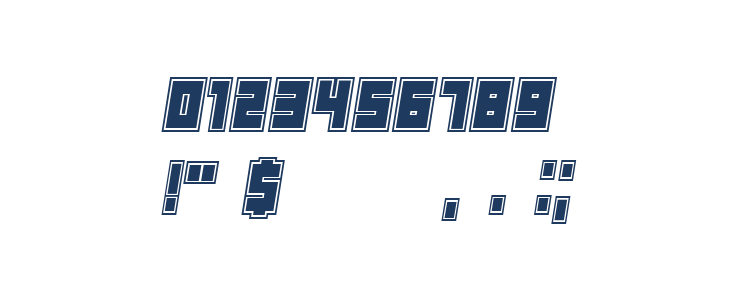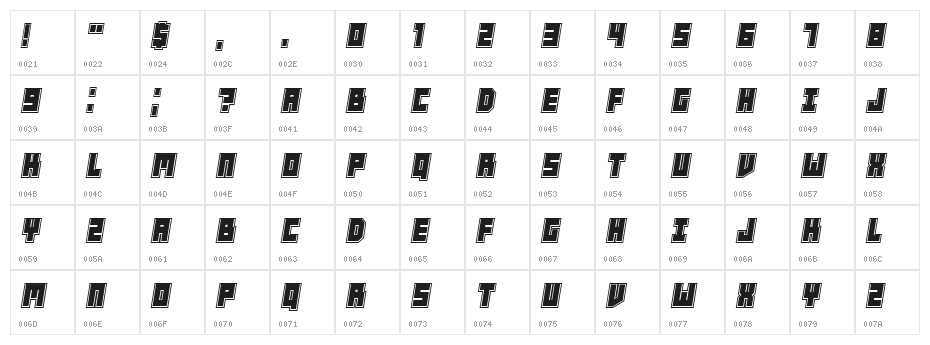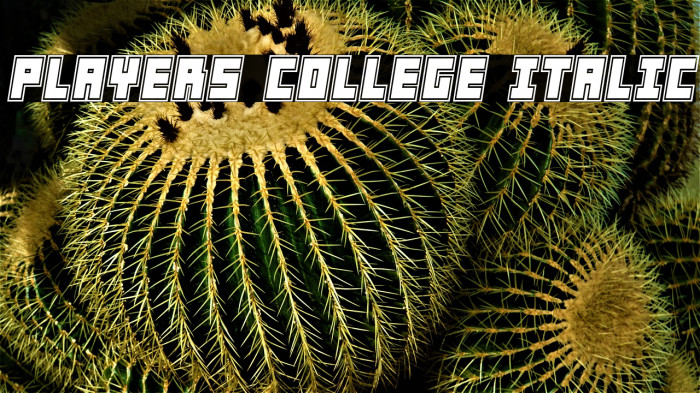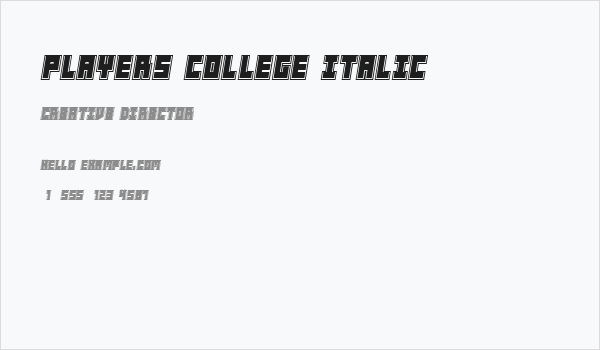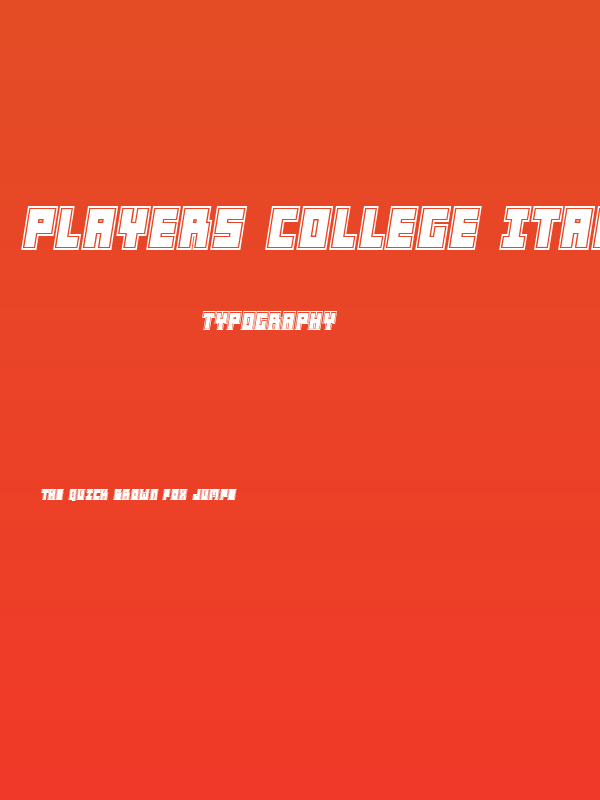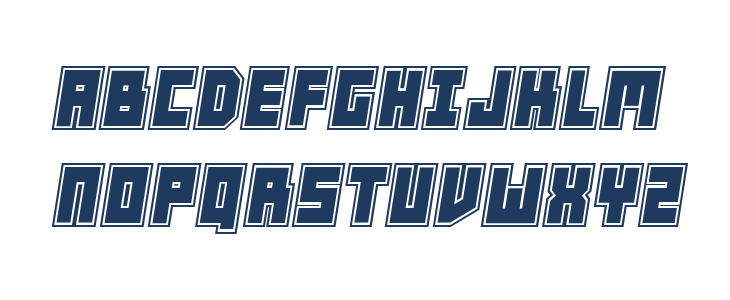
Players College Italic Font
Players College Italic Description
This font features a bold, athletic style with a strong presence, reminiscent of college sports jerseys. The characters are uppercase with a blocky, geometric design, and a distinct italic slant that adds dynamism and movement. The font has a double outline, creating a three-dimensional effect that enhances its boldness. The numbers and special characters maintain the same robust style, ensuring consistency across all elements. This font is ideal for projects that require a sporty, energetic feel, such as team logos, event posters, or merchandise branding.
| Overall Style | Sporty, Energetic, Dynamic |
| Proposed Projects | Ideal for sports team branding, event posters, merchandise, and dynamic headlines. |